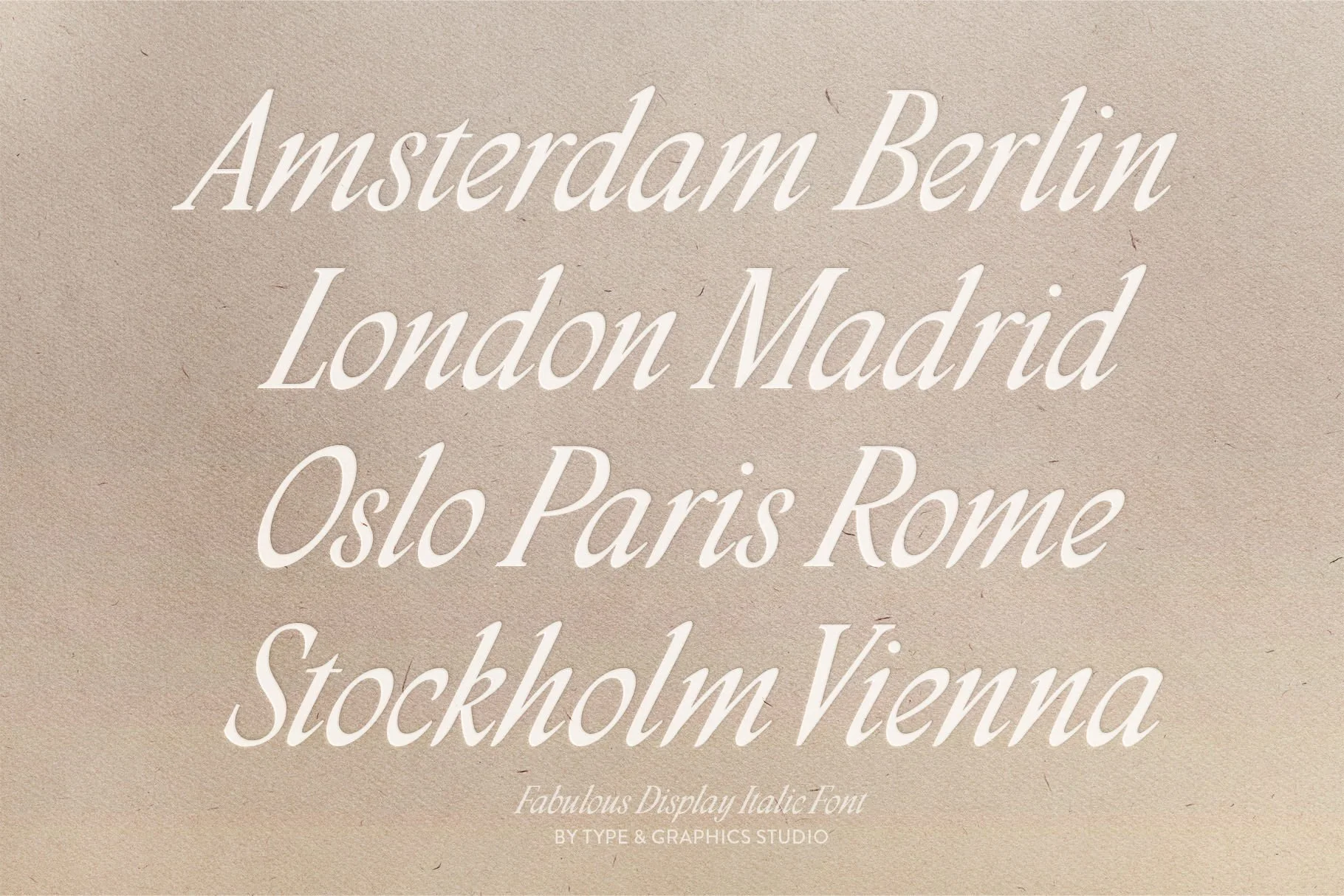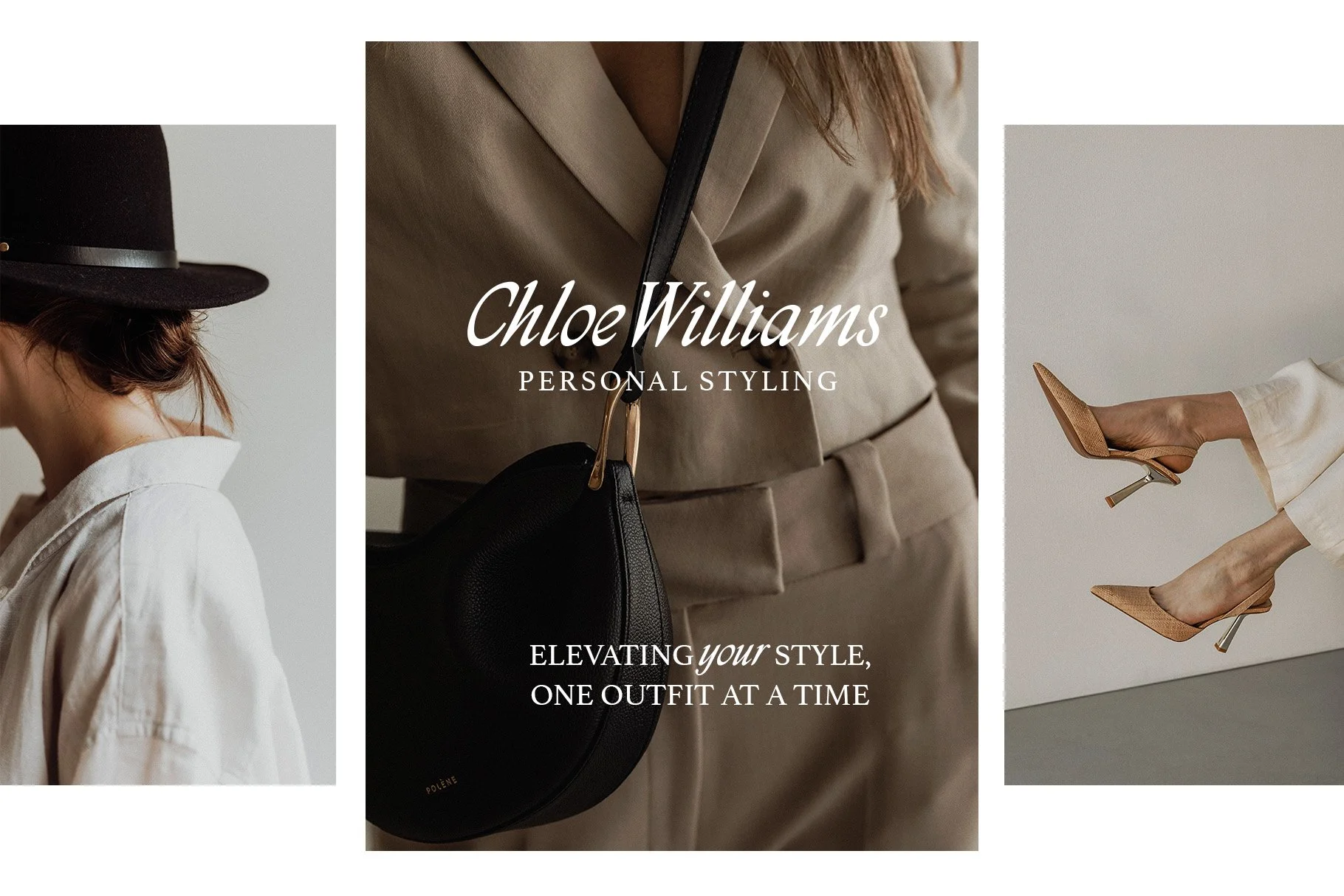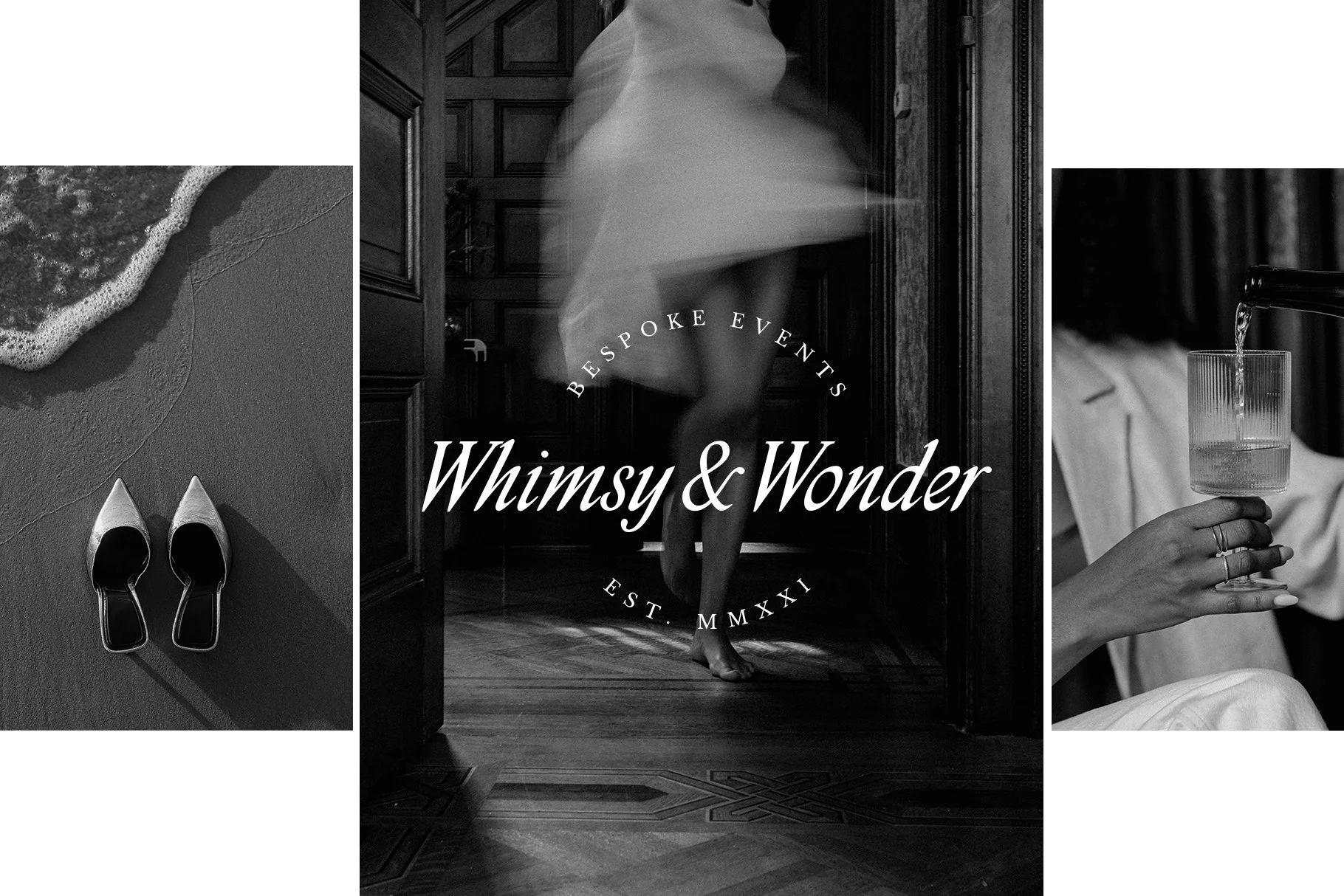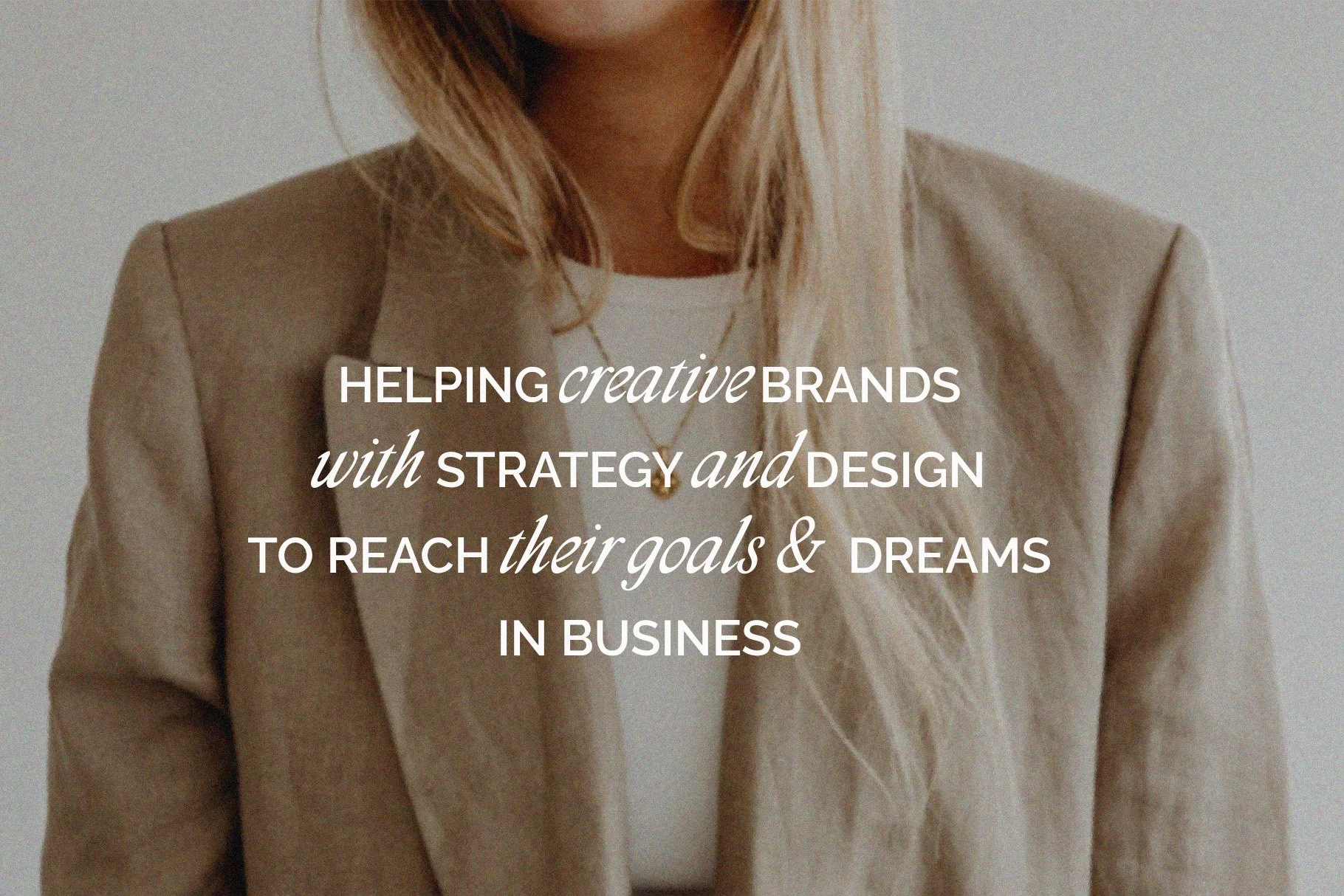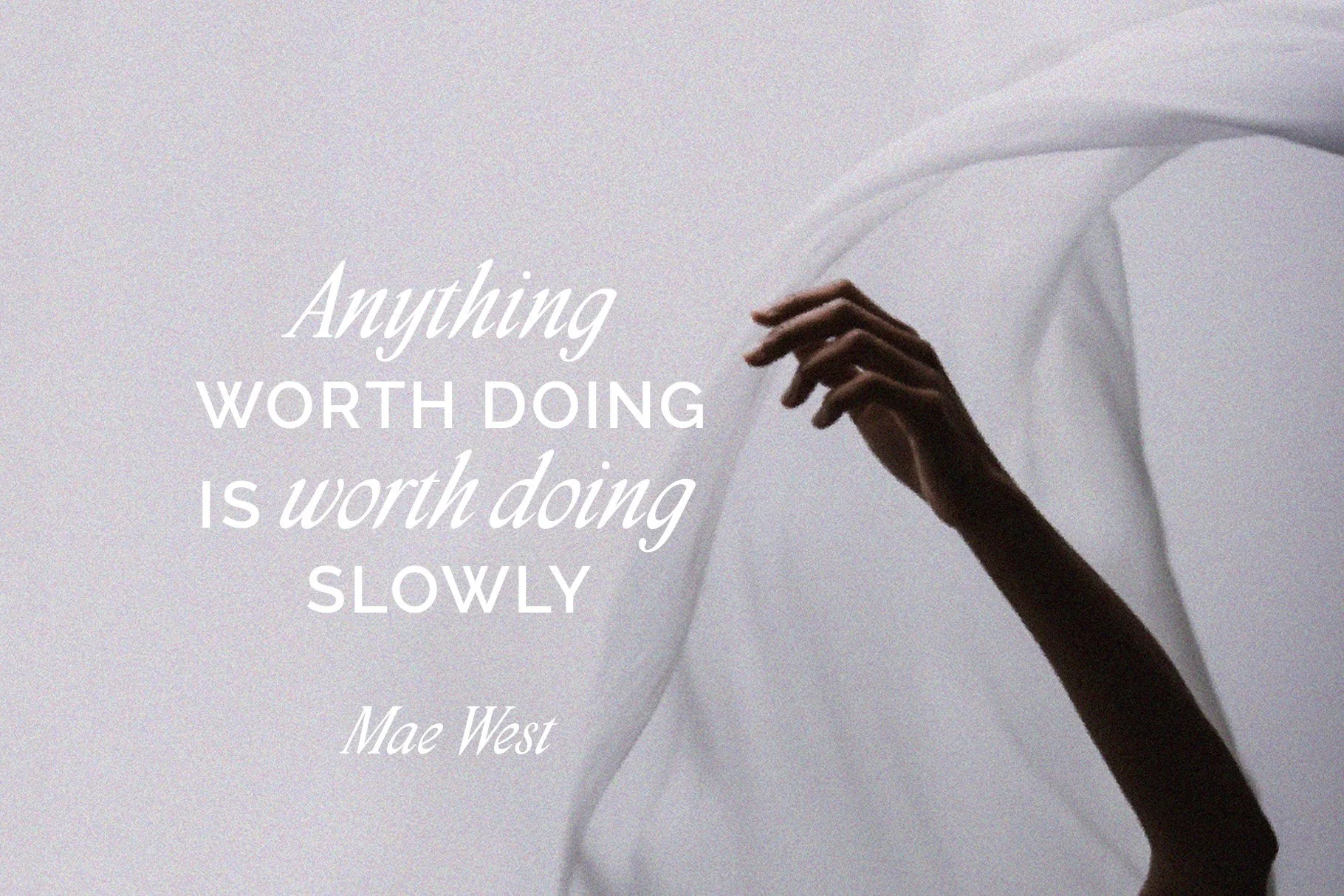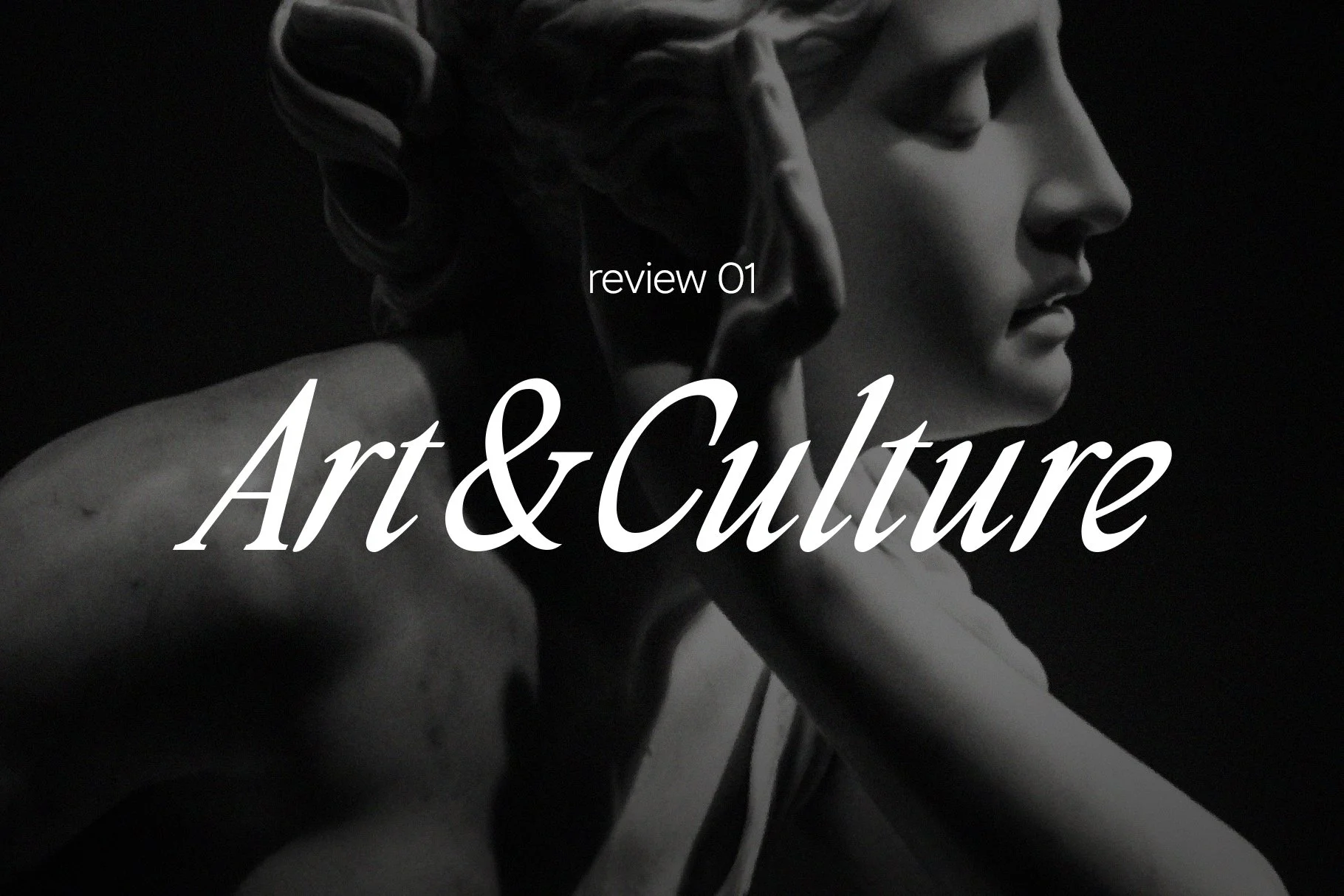
Fabulous Display Italic
Fabulous is designed for logos, personal branding, and expressive headlines.
Developed from calligraphic sketches, the design has been refined into a controlled, contemporary typeface with balanced proportions and consistent rhythm, offering expressive detail without sacrificing clarity.
Ligatures
fb ff ffi fh fi fj fk fl ft rf rt tf tt ux yf